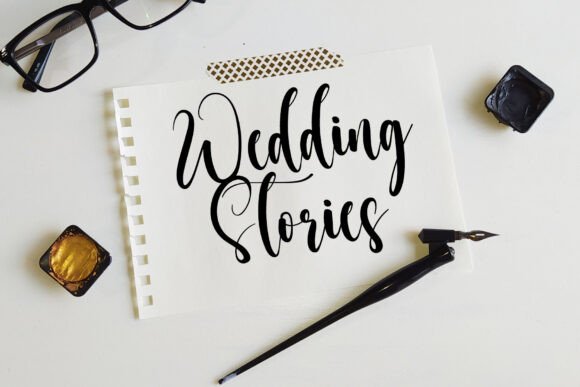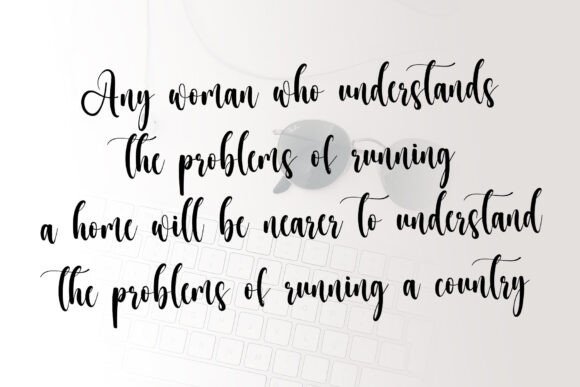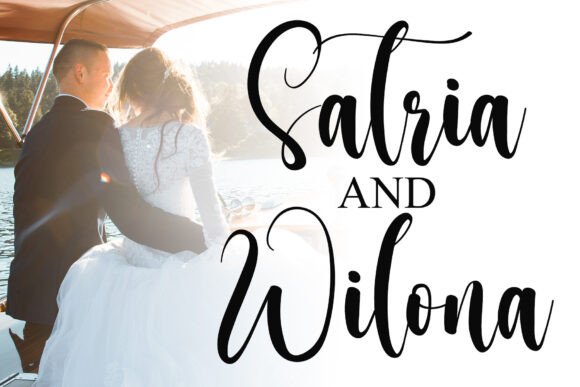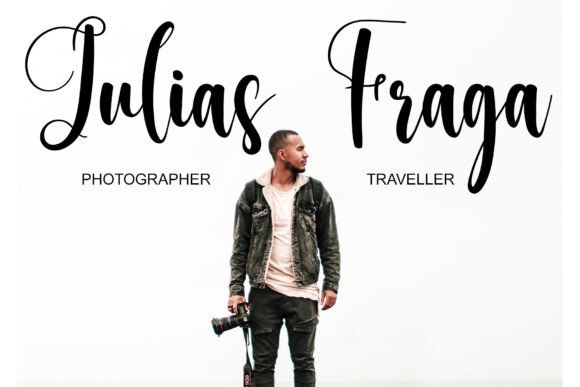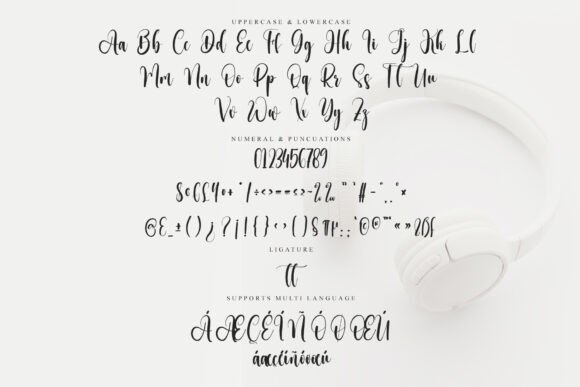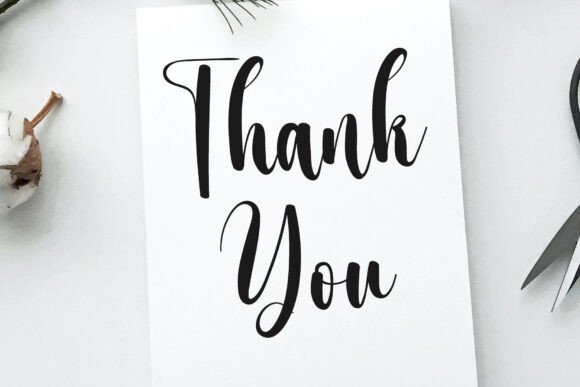
Introducing Beloved Husband Font: Elevate Your Designs with Elegance
In the world of digital design, typography plays a crucial role in conveying the tone and aesthetic of a project. For those seeking to add a touch of sophistication and whimsy to their creations, the Beloved Husband Font is a game-changer. This magical handwritten font is carefully crafted to bring an air of elegance to various designs, making it perfect for a wide range of applications, from social media graphics to DIY projects.
Handwritten fonts have a unique ability to add a personal touch to any design. They evoke a sense of warmth, intimacy, and authenticity that can be difficult to achieve with more traditional typography. The Beloved Husband Font takes this concept to the next level with its beautiful, flowing script that exudes elegance and refinement.
Features of Beloved Husband Font
- Handwritten with Love: Each letter is carefully written by hand, giving the font a unique and personal feel.
- Elegant and Refined: The font’s flowing script and delicate lines make it perfect for designs that require a touch of sophistication.
- Versatile: Suitable for a wide range of projects, from Instagram graphics and social media posts to calligraphy scripts and DIY crafts.
Whether you’re a professional designer or a crafty DIY enthusiast, the Beloved Husband Font is an excellent addition to your toolkit. Designers can use it to create stunning visual content for clients, while crafters can add a personal touch to their handmade projects, such as wedding invitations, greeting cards, and home decor.
Ideas for Using Beloved Husband Font
- Instagram Graphics: Create eye-catching social media posts and stories that stand out from the crowd.
- Calligraphy Scripts: Use the font to add a touch of elegance to your calligraphy projects, such as quotes, poems, and inspirational messages.
- DIY Projects: Add a personal touch to your handmade crafts, including wedding invitations, greeting cards, and home decor.
- Branding and Packaging: Use the font to create unique and memorable branding elements, such as logos, labels, and packaging.
Why Choose Beloved Husband Font?
With so many fonts available, why choose Beloved Husband Font? Here are a few reasons:
- Unique and Exclusive: The font’s handmade nature ensures that your designs will stand out from the crowd.
- High-Quality: The font is carefully crafted to ensure that it looks great in various sizes and applications.
In conclusion, the Beloved Husband Font is a magical handwritten font that can elevate your designs to the next level. Its elegant and refined script makes it perfect for a wide range of projects, from social media graphics to DIY crafts. With its unique and exclusive nature, high-quality design, and support for creative projects, this font is a must-have for designers and crafters looking to add a touch of sophistication to their work.